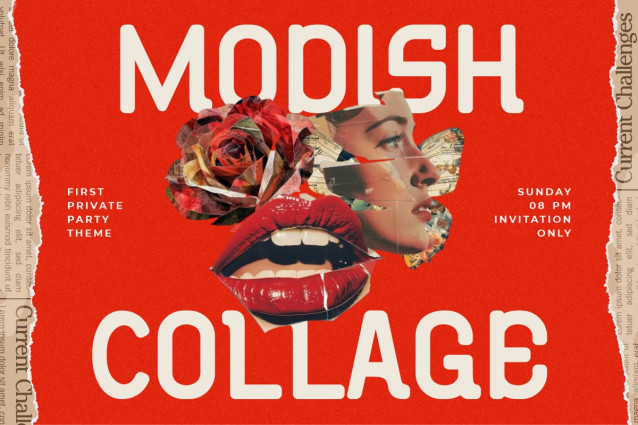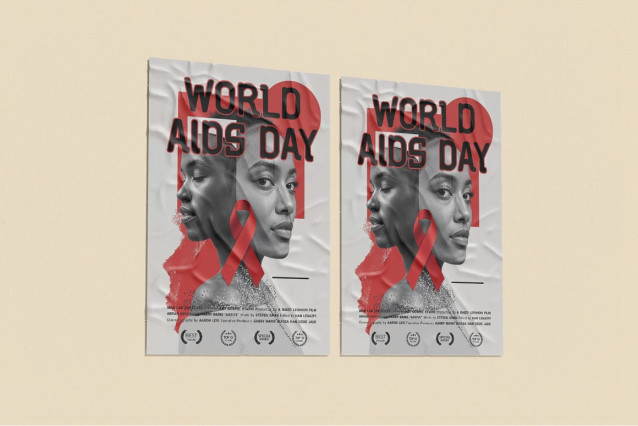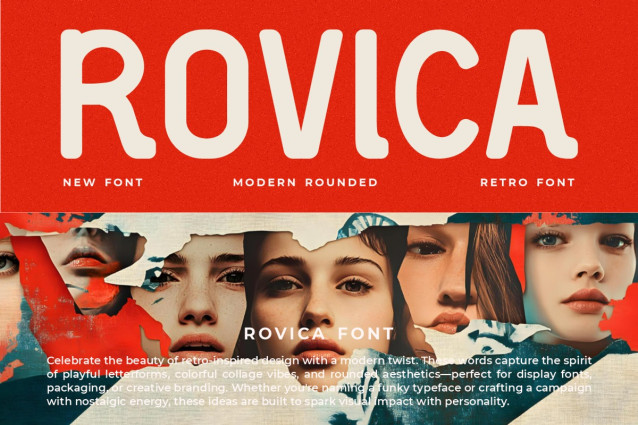
Rovica Font
Rovica Font blends the nostalgic appeal of vintage typography with a clean, modern aesthetic. Its rounded, tall letterforms convey softness and balance while maintaining bold legibility. The medium thickness and smooth curvature of each character give it a playful yet professional personality. Subtle geometric proportions and even stroke widths create a sense of stability, making the font both approachable and confident. Rovica Modern Retro Display Font captures the visual rhythm of 70s-inspired design while presenting it through a refined contemporary lens — perfect for designers who love merging old-school vibes with modern precision.
This typeface is highly versatile for logo design, brand identity, editorial titles, posters, and packaging. It works beautifully for lifestyle branding, fashion campaigns, and social media visuals that aim to express individuality and warmth. Its minimalist yet expressive form gives every project a sense of authenticity and artistic flair. Rovica Modern Retro Display Font embodies creativity that’s fresh, bold, and full of personality. Whether used for striking headlines, editorial layouts, or nostalgic design concepts, this font adds depth and character that never goes out of style.